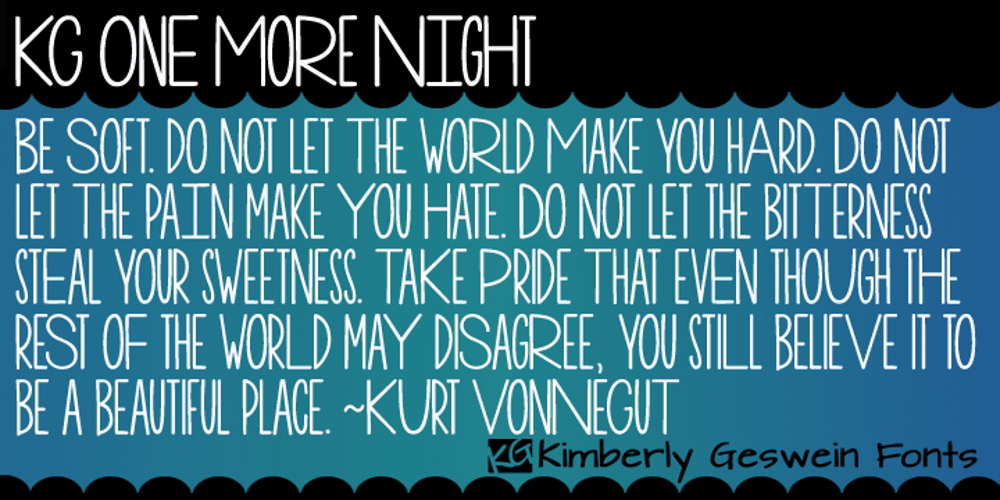
KG One More Night Font Family was designed by Kimberly Geswein and published by Kimberly Geswein. KG One More Night contains 1 styles and family package options. Tall, skinny handwritten letters in both a wide and a narrow version. The uppercase slots hold all of the wide versions, while the lowercase slots hold all of the narrow versions.